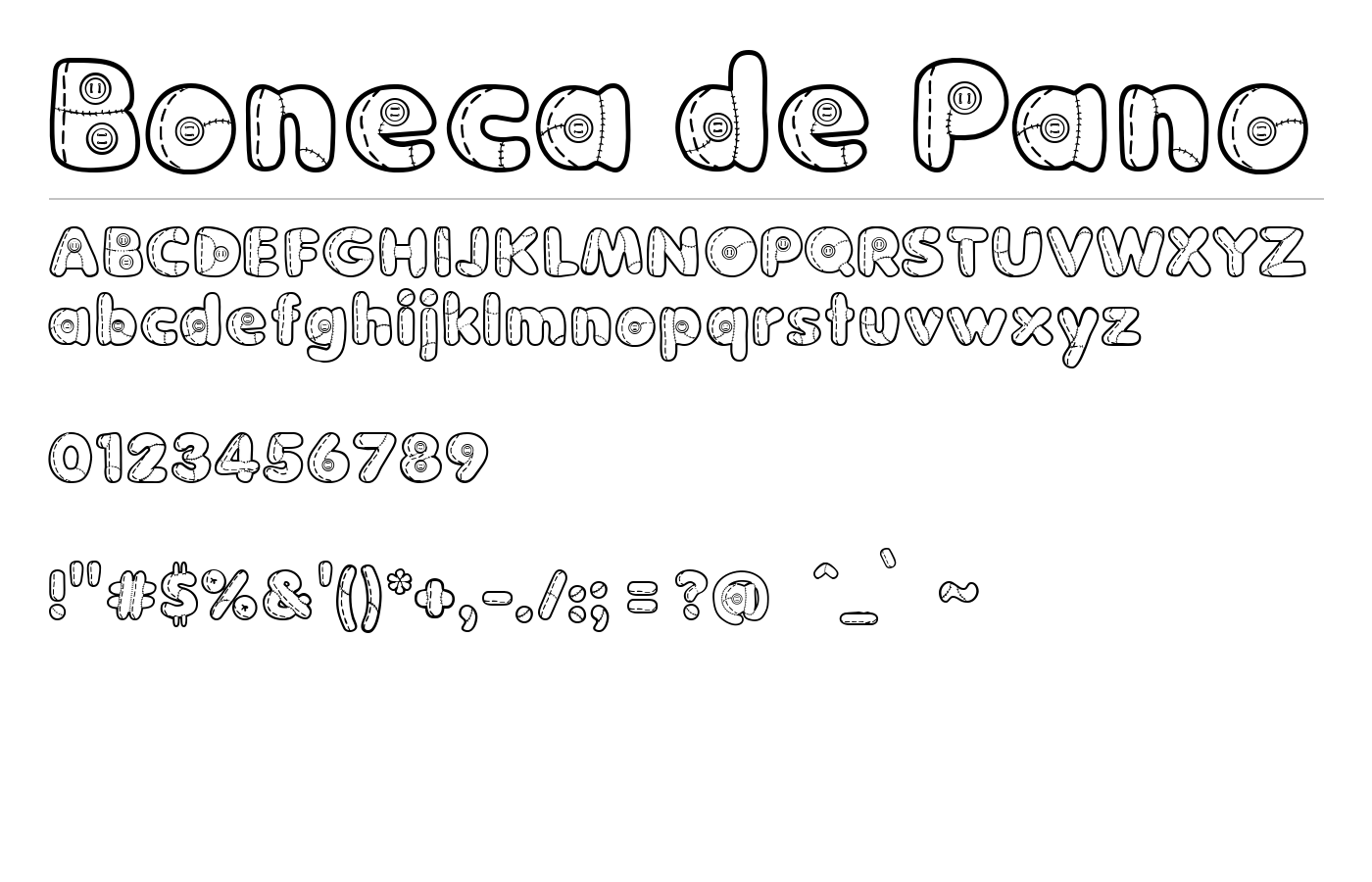
Boneca de Pano is a playful, hand-drawn display font that mimics the appearance of stitched fabric with button details, giving it a whimsical, crafty feel. Its rounded, soft letterforms with detailed linework evoke warmth and creativity, making it perfect for children's books, playful branding, and creative packaging. This font works best in settings that require a friendly, approachable, and handmade aesthetic.
Boneca de Pano Font